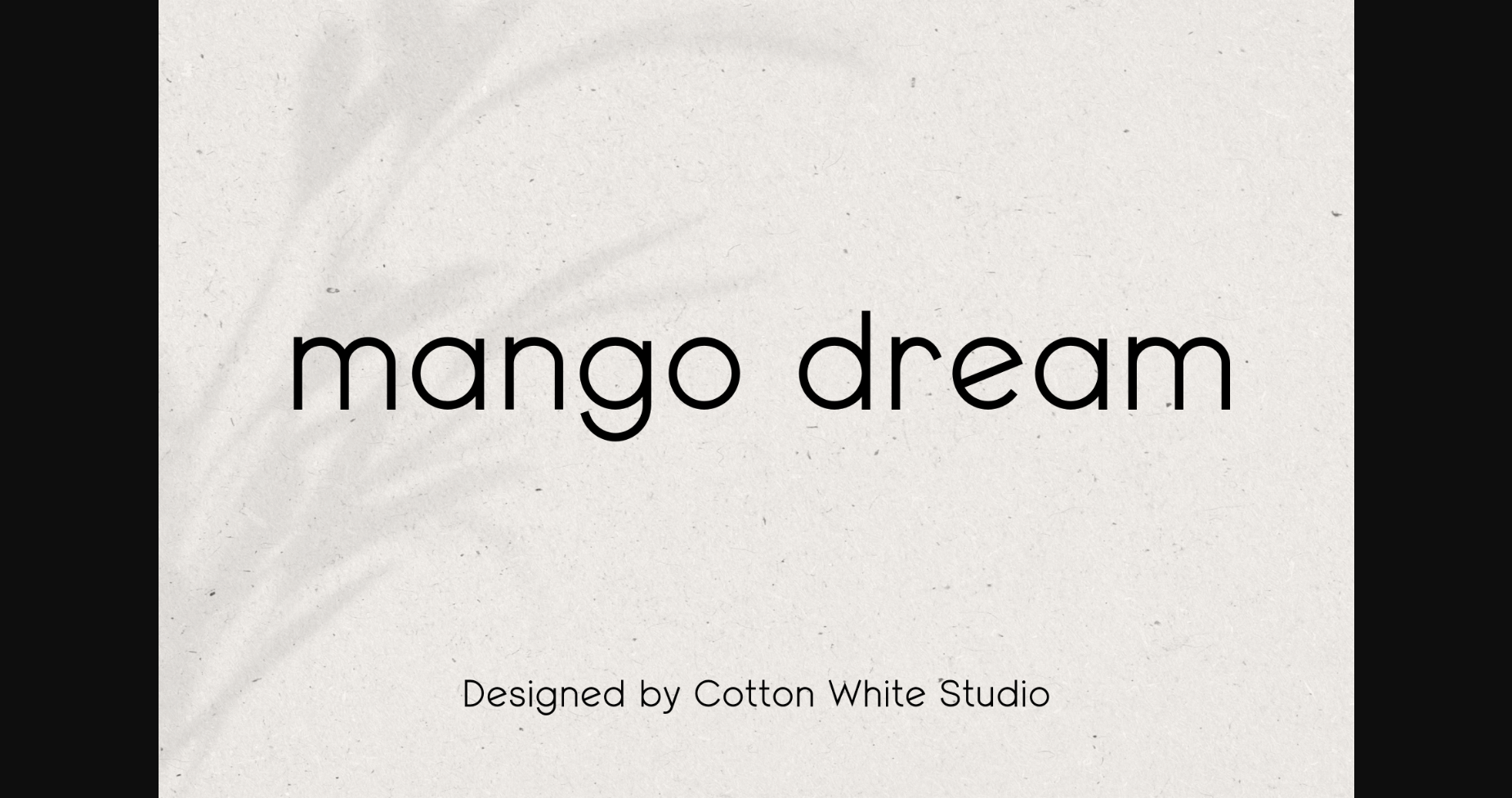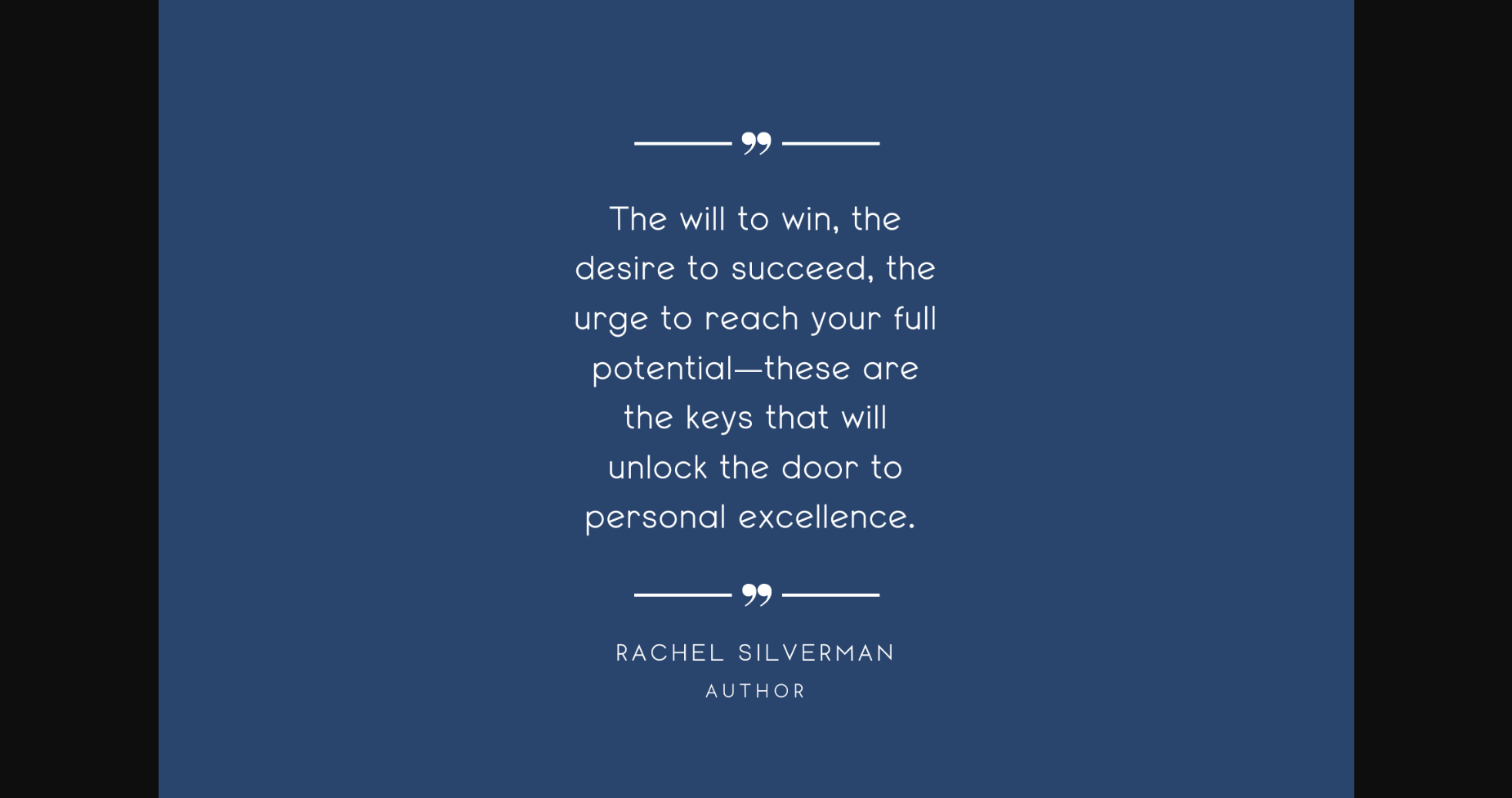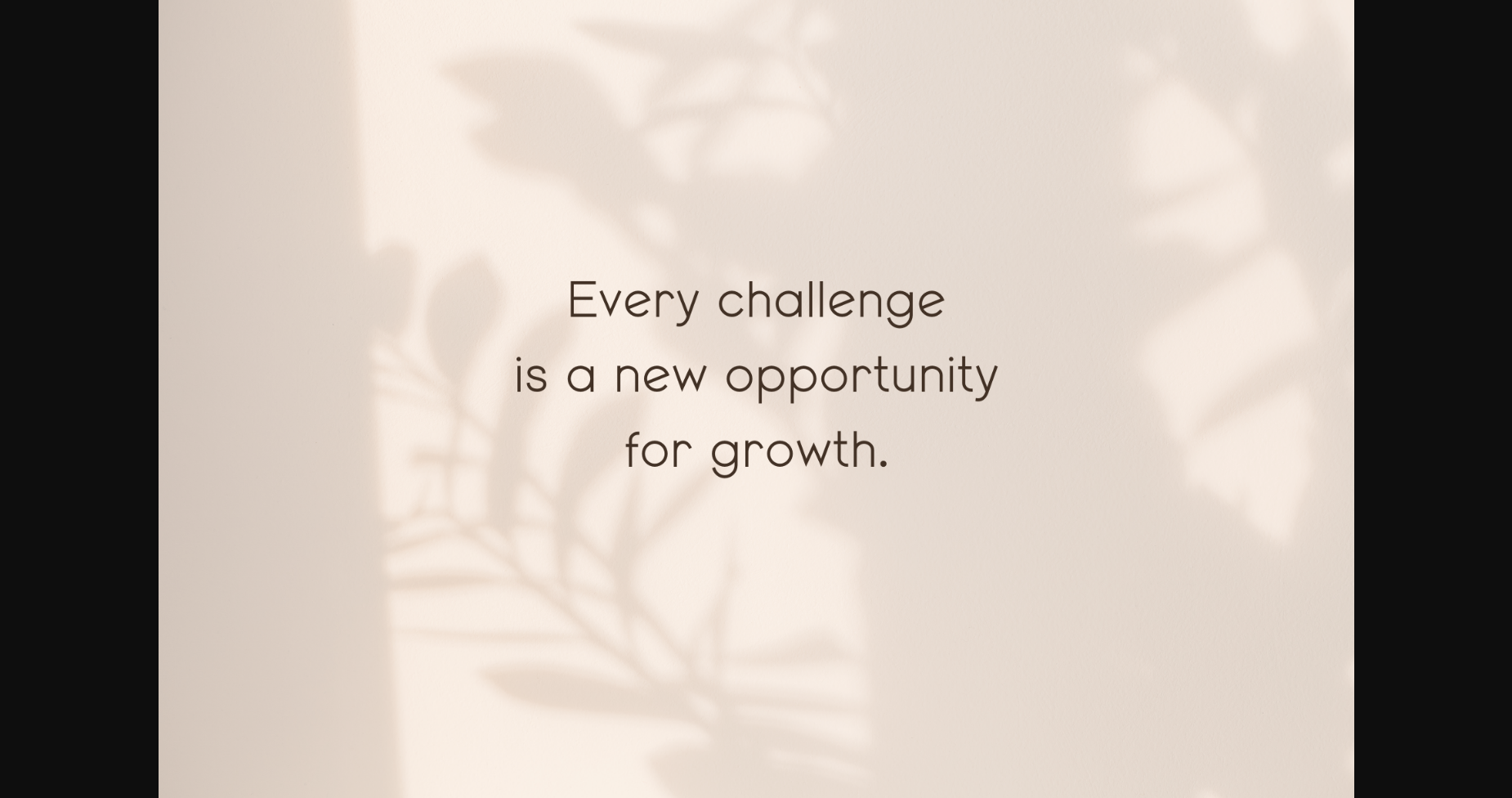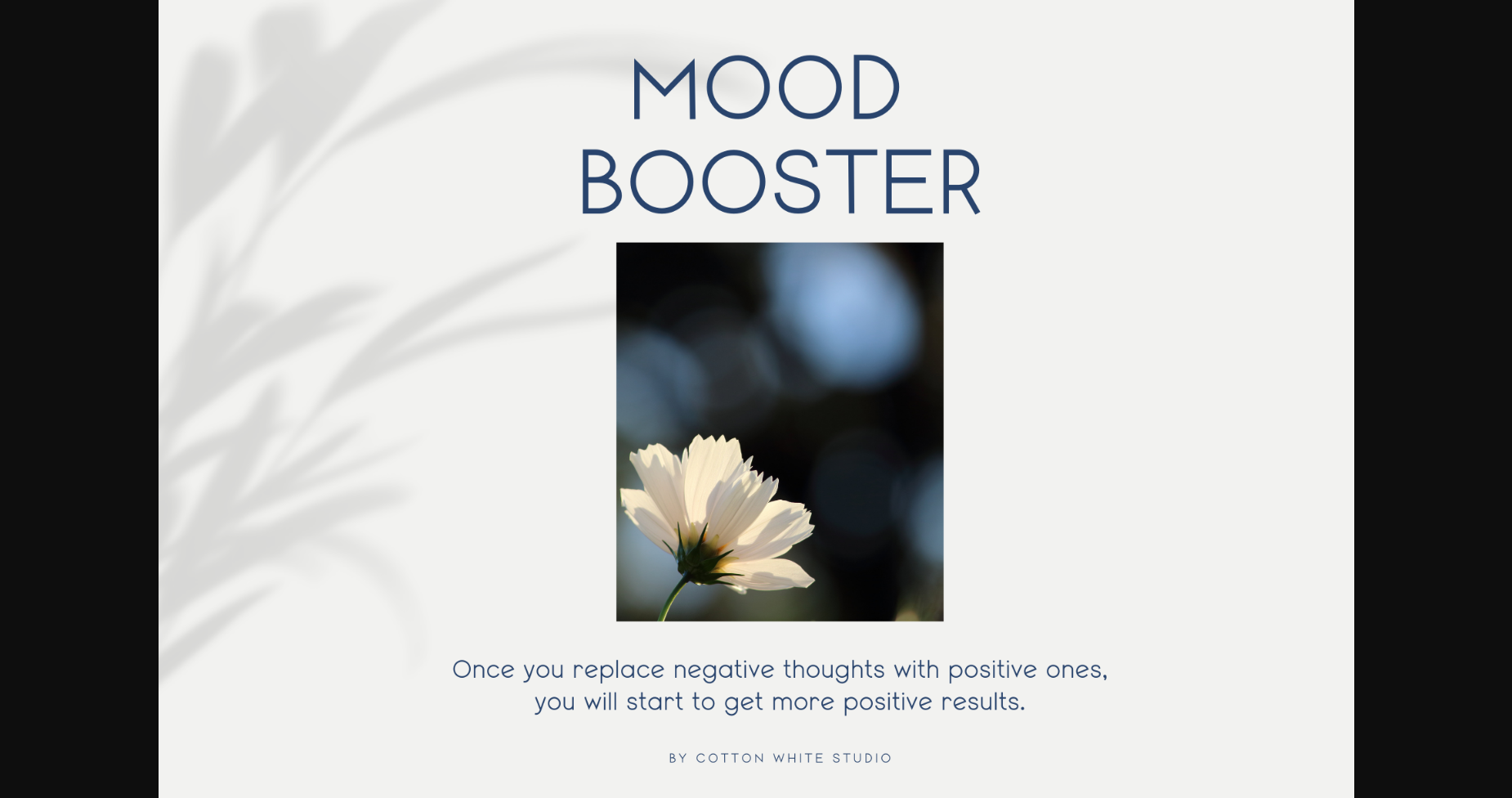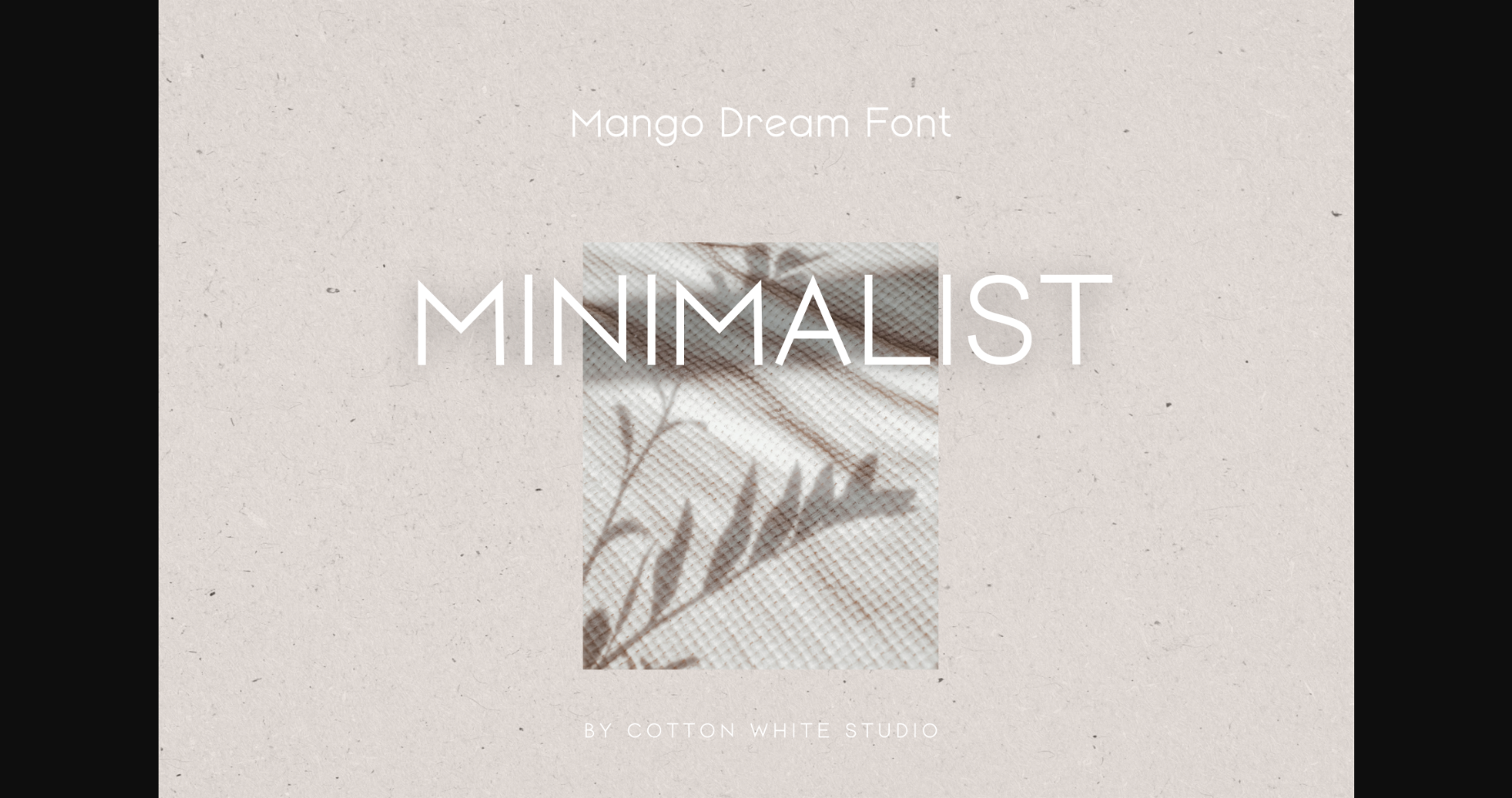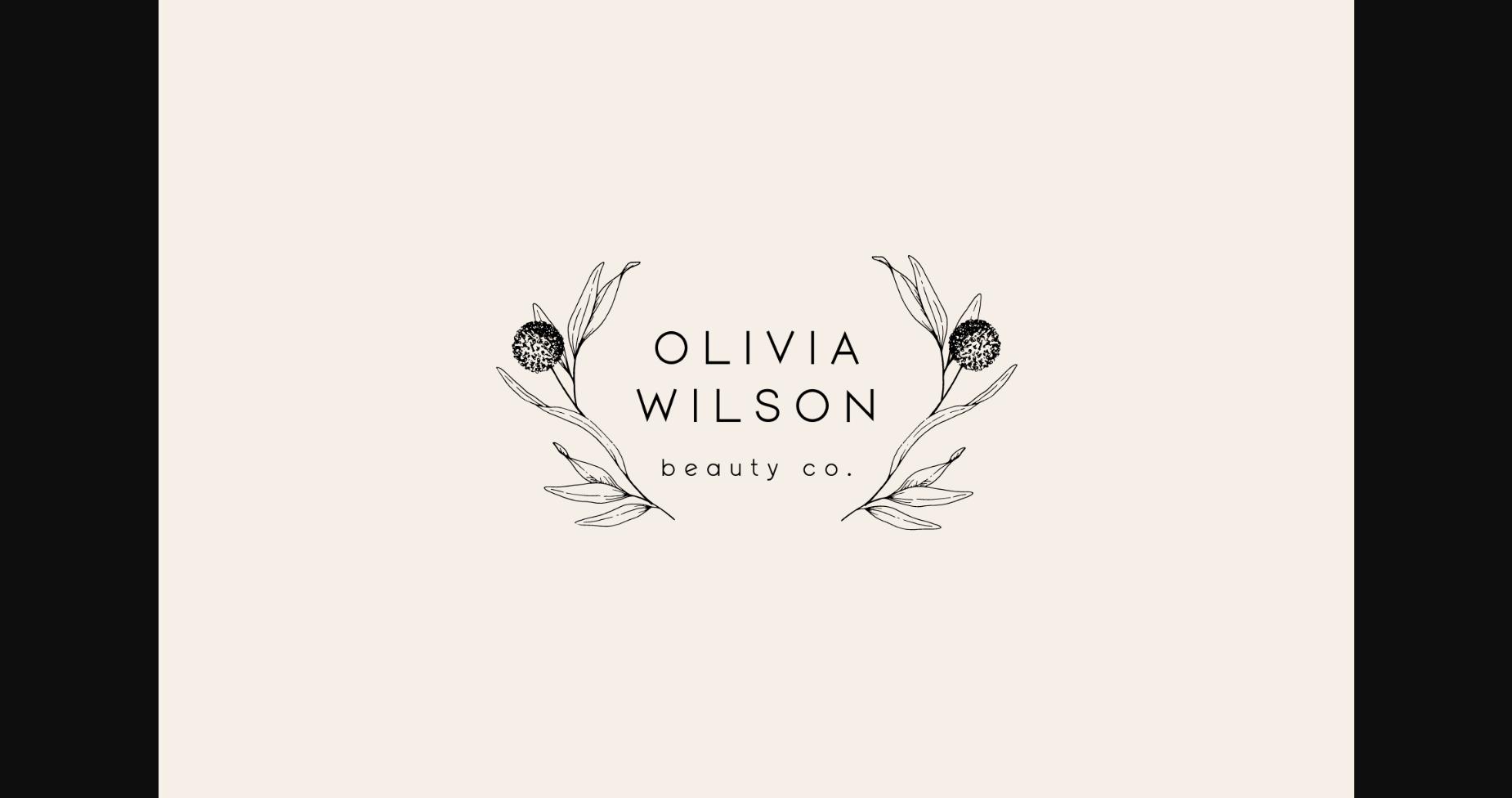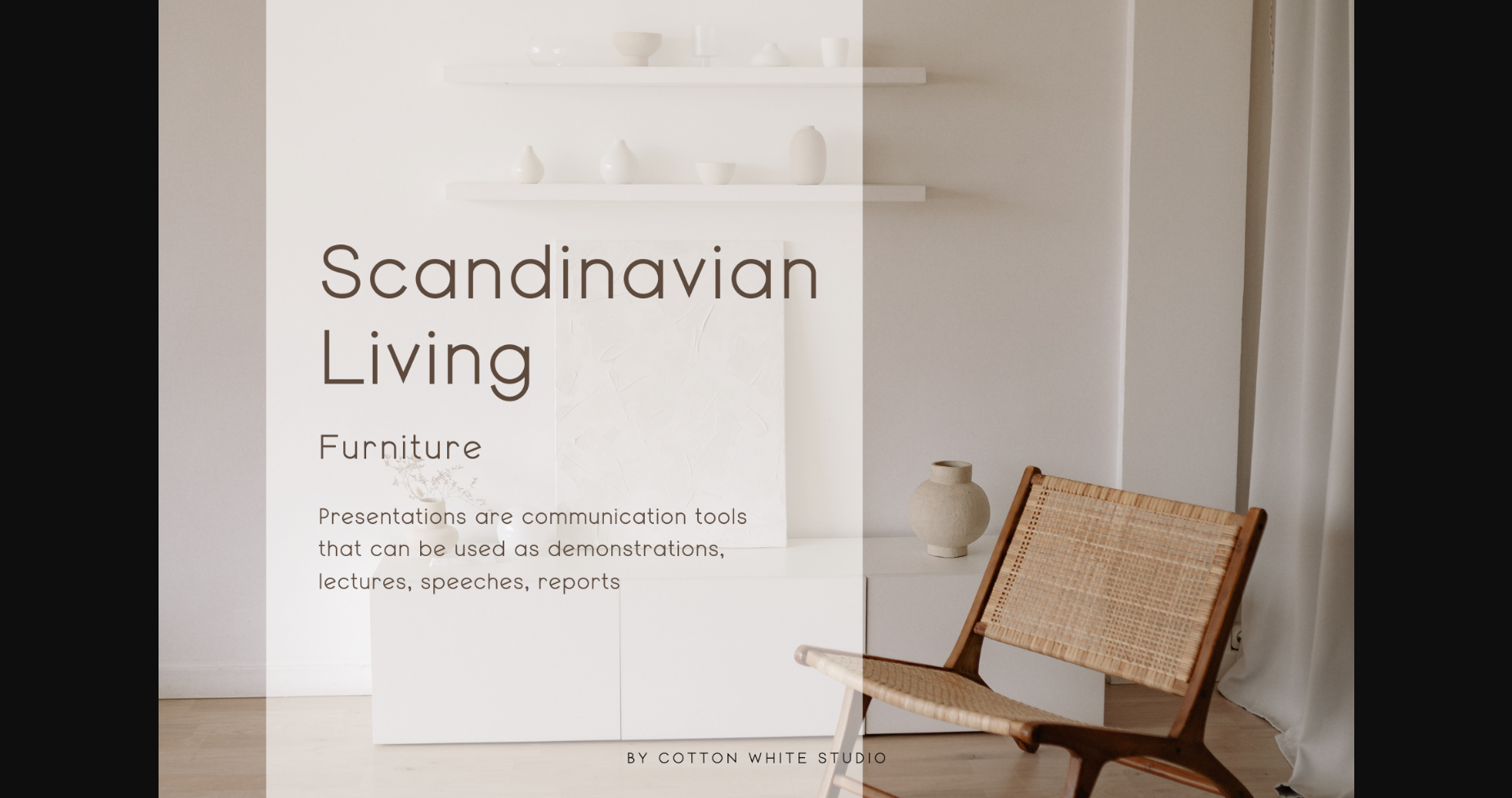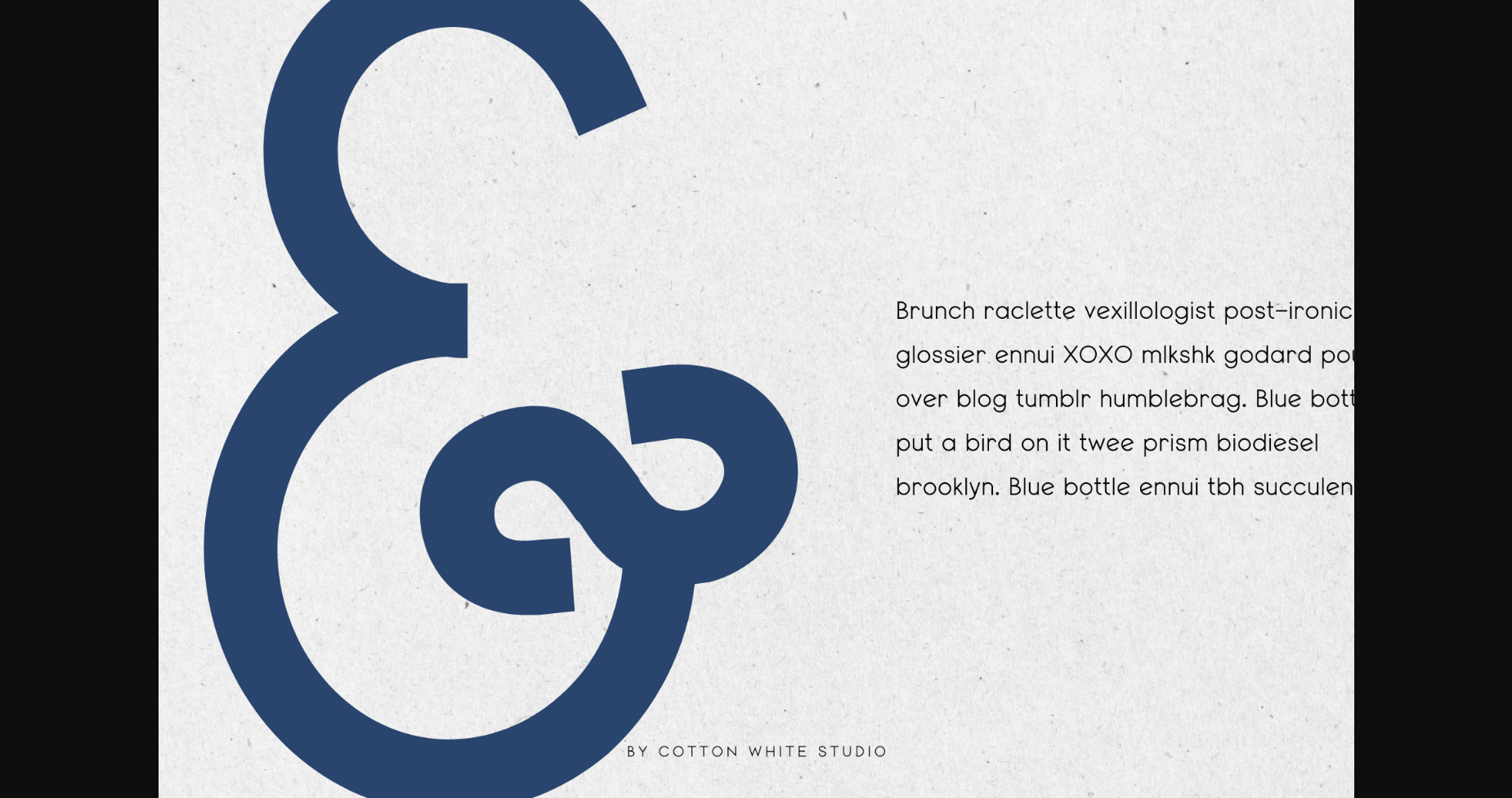
About Mango Dream Font
Mango Dream is a modern sans-serif font with a round and minimalistic shape. Its clean and contemporary design is a great choice for any project that needs a professional touch. It comes with multilingual support, so you can use this font to reach a global audience. Whether you’re working on a website, branding materials, or marketing campaigns, this font is sure to become a go-to in your design toolkit.